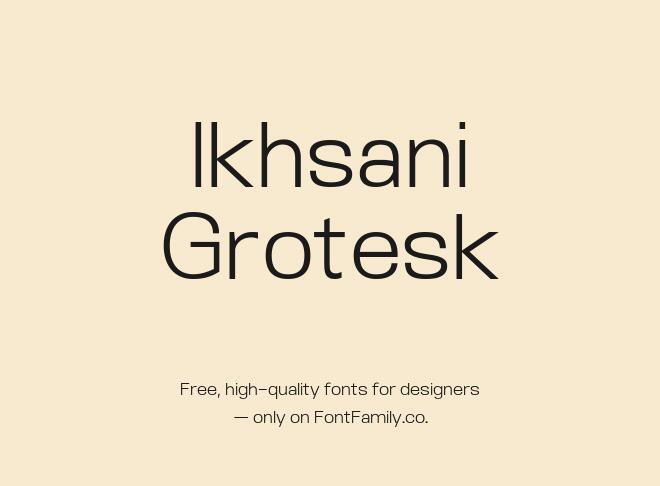
Ikhsani Grotesk Font
Ikhsani Grotesk Font is a fresh modern typeface that effortlessly blends geometric precision with a contemporary feel. Designed by Ikhsan Istamar, this font is perfect for branding projects, magazine layouts, and web designs. Its clean lines and crisp edges make it an excellent choice for headlines and logos, while its geometric nature lends itself well to a variety of design aesthetics. The clear and readable character design makes it versatile for both print and digital use. Compared to other fonts, Ikhsani Grotesk stands out with its distinct style that is both modern and timeless. This font is a free download and an excellent addition to any designer's toolkit, offering a unique style that can enhance a wide range of design projects.